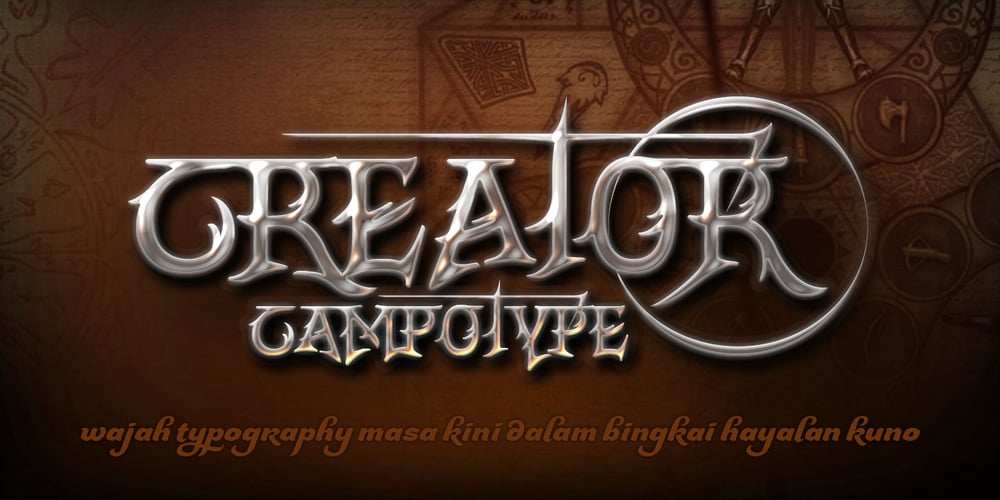
CrEAtOR CamPotype
CrEAtOR CamPotype font
CrEAtOR CamPotype Font Family was designed by Andi A. W. Masry and published by Campotype. CrEAtOR CamPotype contains 1 styles and family package options. So far the Creator Campotype standard version known in the form of free font (published on several websites by license: free for personal use). The font takes the basic form of modern typography, but some user feedback consider it in the medieval look. Whatever it is, the inspiration of the font was originally set off from the logotype of internal student magazine where the designer had studied in the late 80s. Creator Campotype is a pure display font. This fonts do not have faces lowercase, but all caps. Nevertheless forms of different characters can be accessed by pressing the uppercase and lowercase on the keyboard. Maximum usage can be made by combining them as necessary. Some forms of characters were made more stylistic such as slash and backslash which “out of” the conventional form. In addition, the circle effects on several glyphs were created by default (as found on the free version) so that the glyph was enough to generated with the keyboard access as usual. Information for those who have access to the free version, there are significant changes in this version (2001) as described in the file “creator ct pdf” (gallery)